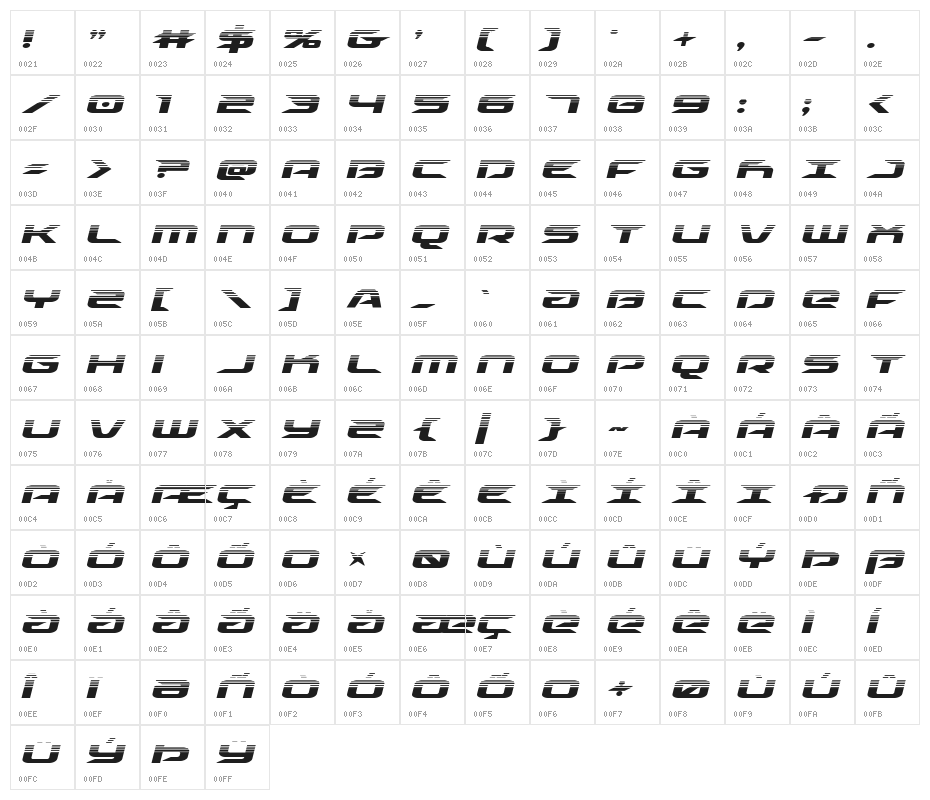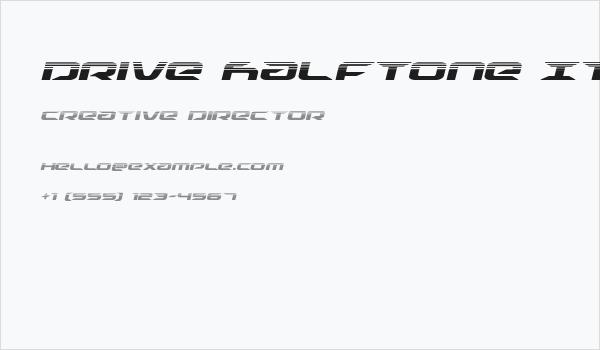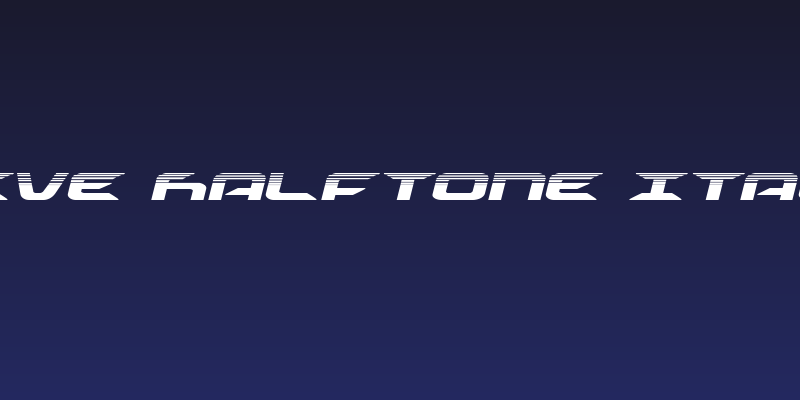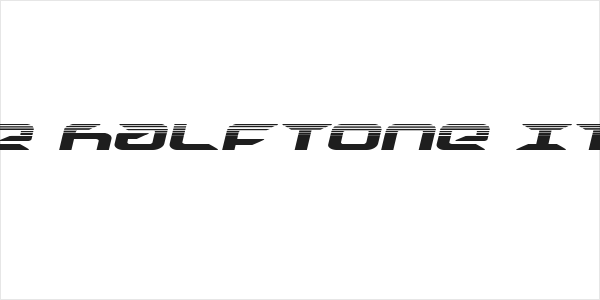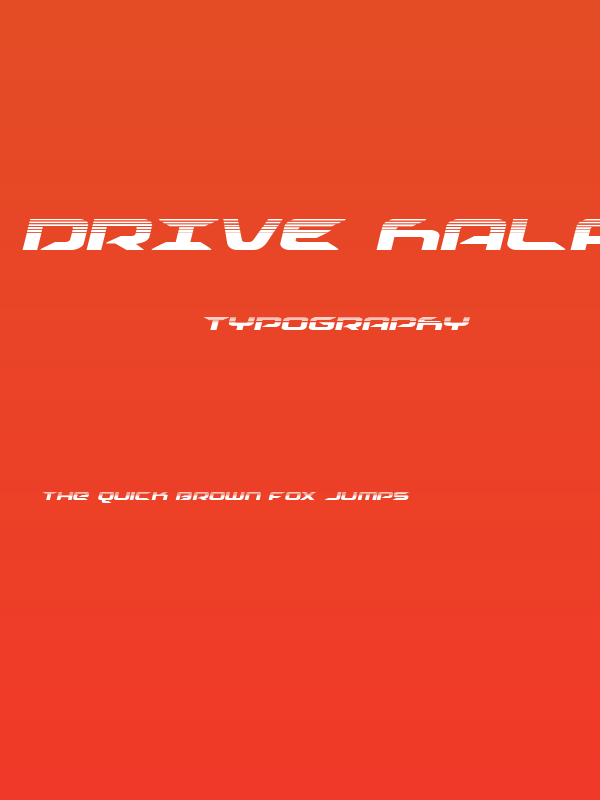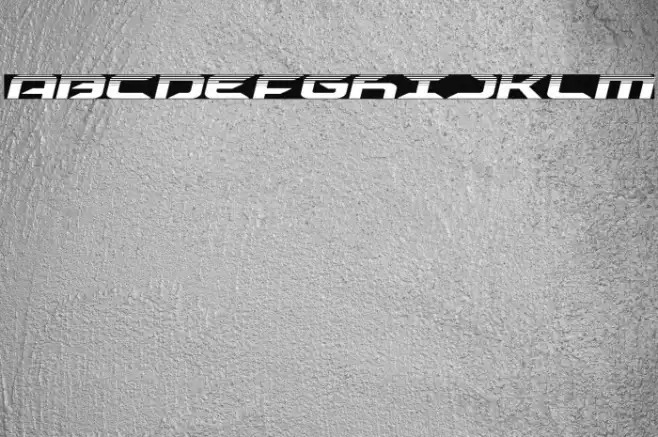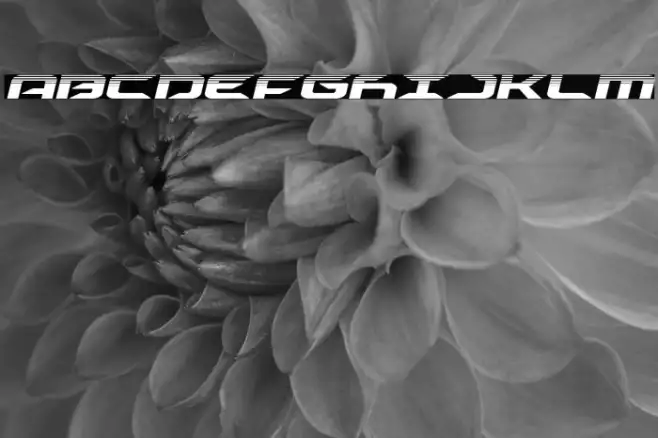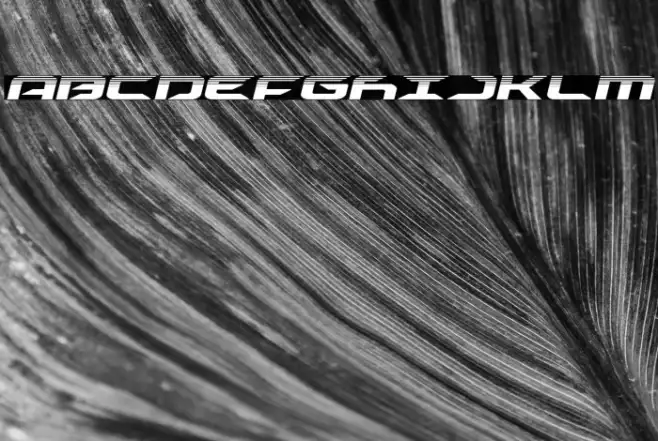
Drive Halftone Italic Font
Drive Halftone Italic Description
This font features a dynamic and futuristic design with a halftone effect that gives it a sense of motion and speed. The italicized letters are sleek and angular, with sharp edges and a distinct slant that enhances its modern aesthetic. The uppercase and lowercase characters maintain a consistent style, while the numerals and special characters integrate seamlessly with the overall design. The halftone pattern within each character adds a unique texture, making it stand out in digital and print media. Its bold presence is ideal for projects that require a strong visual impact.
| Overall Style | Futuristic, Dynamic |
| Proposed Projects | Ideal for automotive branding, tech-related advertisements, video game titles, and futuristic-themed posters. |